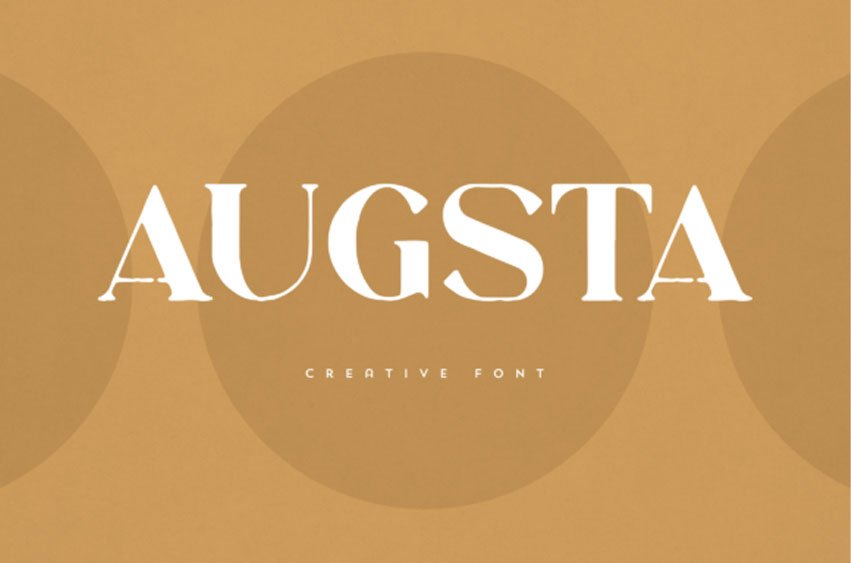
Augusta Font
Augusta Font is an elegant and versatile serif font that will make your typography truly unique! It will enchant every logo, branding, headline, or plain text!
This font is perfect for branding projects, home-ware designs, product packaging, magazine headers – or simply as a stylish text overlay to any background image.